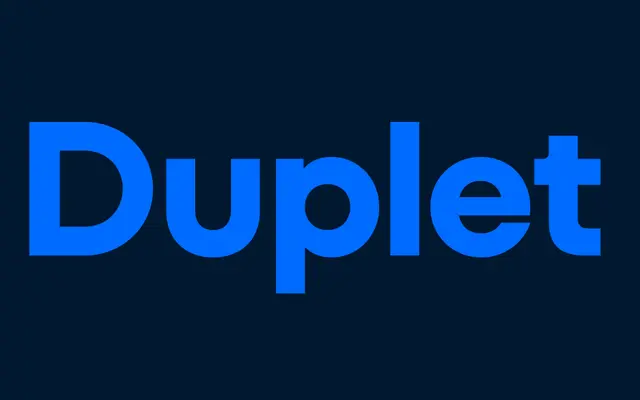
A geometric sans-serif from Indian Type Foundry spanning seven weights with italics, accompanied by Rounded and Open subfamily variants.
Duplet offers a clean geometric construction across seven weights from Thin to Extrabold, each with a matching italic, giving designers 14 styles in the base family. Two companion families, Duplet Rounded and Duplet Open, extend the system for softer or more open-aperture applications. The range suits interface, editorial and branding work where a disciplined but friendly geometric sans is needed.
Duplet presents clean, geometric letterforms typical of a modern geometric sans-serif, with a structured design that extends across a broad weight range and related rounded and open subfamilies.